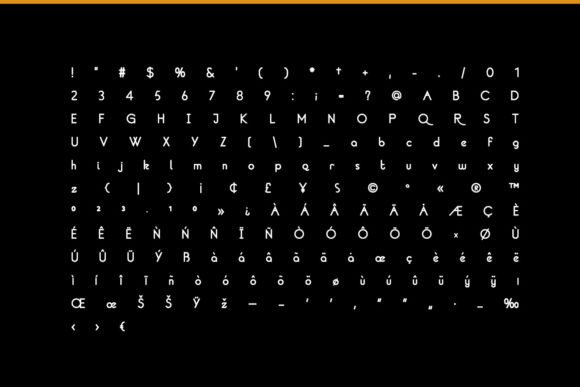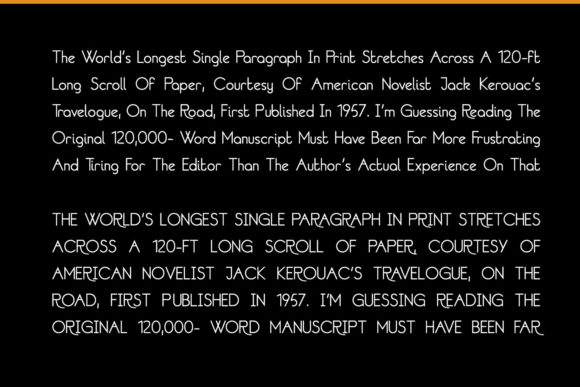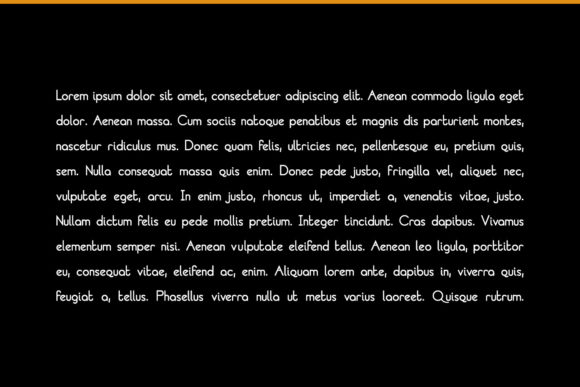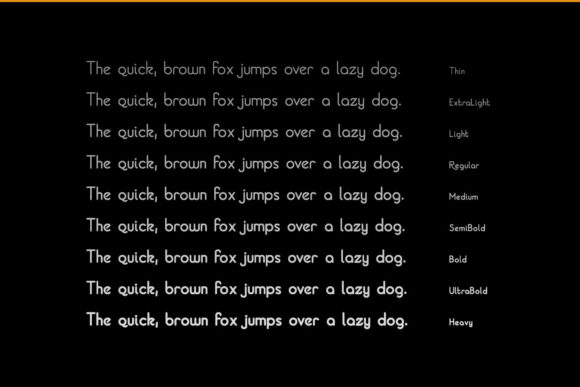
Introduction to Looker Font
Have you ever stared at a blank page, trying to bring your creative vision to life, only to feel stuck and unsure of where to start? That’s where the perfect design resource comes in – a font that can elevate your project from ordinary to extraordinary. For designers looking to add a touch of sophistication to their work, the Looker Font is a game-changer.
This high-quality sans serif font is designed to be versatile and adaptable, making it an excellent choice for a wide range of creative projects. Whether you’re working on a business logo, a marketing campaign, or a personal art piece, Looker Font’s clean lines and minimal aesthetic will help your design stand out.
Key Features of Looker Font
- Transparent background allows for easy customization and blending with other design elements
- Optimized for use at high resolutions, making it perfect for print and digital applications
- Includes a wide range of characters and glyphs, making it suitable for multilingual projects
- Supports various font sizes and styles, allowing for flexibility in design applications
- Designed to be highly legible, making it an excellent choice for body text and headings
Honest Review: Looker Font
I recently had the chance to experiment with the Looker Font, and I must say, it’s been a delightful experience. As a designer, I’m always on the lookout for high-quality design resources that can elevate my creative projects. And, I’m happy to report that Looker Font definitely fits the bill.
However, I do have a few minor complaints. One of the limitations of the Looker Font is that it’s not as robust as some of the more premium fonts out there. It’s perfect for casual, creative projects, but may not hold up to heavy use in more complex design contexts. ⚠️
Overall, I’m really impressed with the Looker Font. It’s a solid choice for designers looking for a high-quality, free download font that’s perfect for a variety of creative projects.
For the best results, use the Looker Font in conjunction with other design resources. Experiment with different font sizes, colors, and combinations to create a unique and visually appealing design.
The Looker Font is perfect for a variety of creative projects, including branding, logos, graphics, and more. Its high quality and transparent background make it an excellent choice for free download and use in any design project.